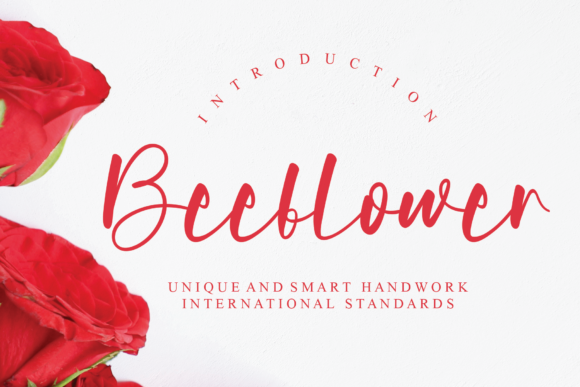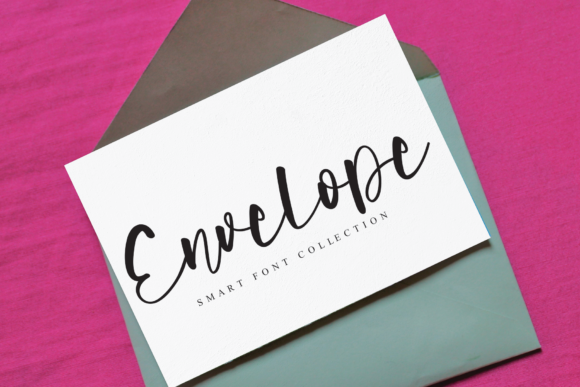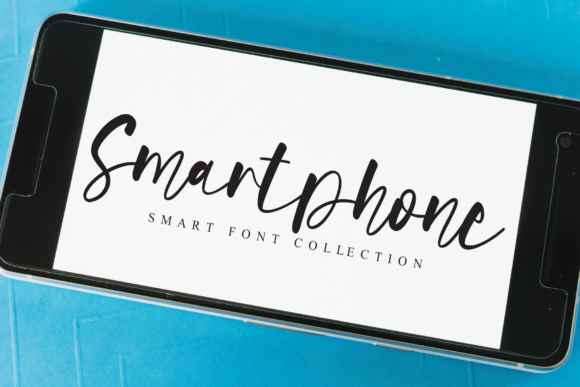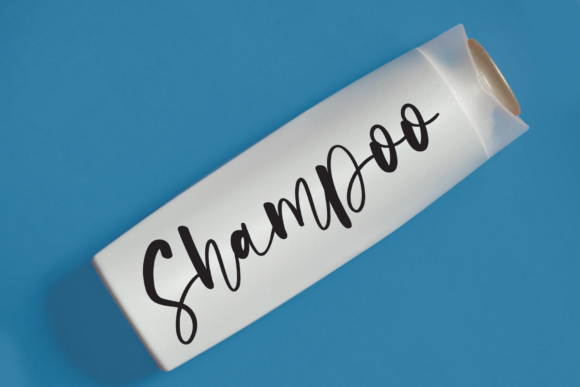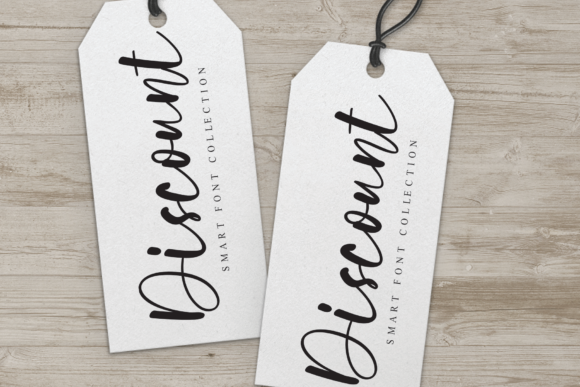
Beeflower Font
About Beeflower Font
Beeflower is a minimal and flowing handwritten font. Use it for any design projects that require a charming appearance!